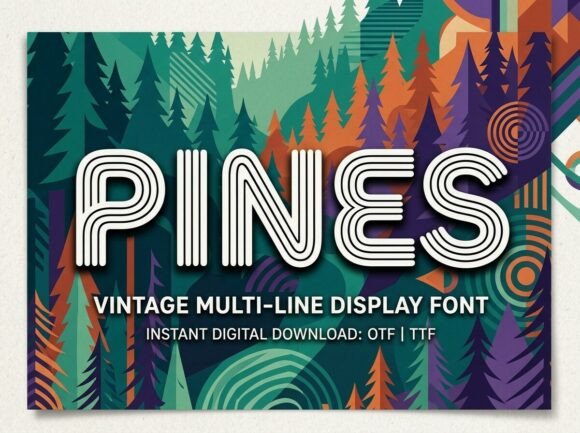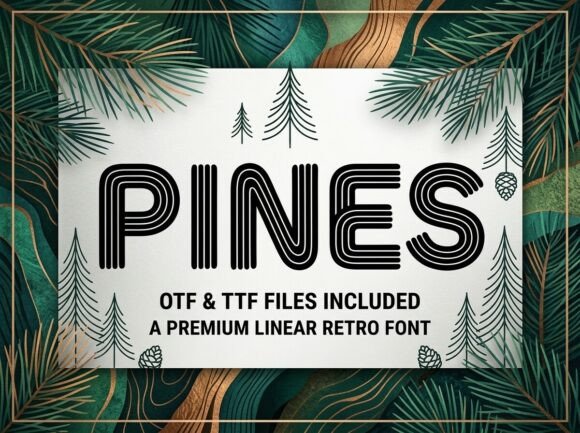
Introduction to Pines Font
Remember the thrill of flipping through a vintage magazine, stumbling upon a retro advertisement that perfectly captured the essence of a bygone era? For designers, that moment is a treasure trove of inspiration – and the Pines Font is a key part of that treasure. This stunning display typeface is a masterclass in capturing the spirit of a bygone age, with its bold, rounded letterforms and classic mid-century striped effect.
With its high-contrast geometric energy and nostalgic personality, the Pines Font is a design resource that’s hard to resist. Whether you’re working on a project that demands a vintage vibe or simply want to add some old-school cool to your creative project, this font is sure to deliver. And the best part? It’s available for a free download, making it an accessible high-quality addition to any designer’s toolkit.
From independent retro diner branding to 70s-inspired apparel logos, the Pines Font is a versatile choice that’s sure to bring a touch of elegance to your design work. With its transparent background and sleek lines, it’s the perfect choice for designers who want to create high-impact social media headers, vinyl record store identities, or anything else that requires a dash of nostalgic charm.
Honest Review: Pines Font
I recently stumbled upon the Pines Font and I’m excited to share my thoughts on this design resource. The Pines Font is a beautifully crafted, high-quality font that’s perfect for creative projects.
What works well about the Pines Font is its unique and elegant design, making it suitable for a wide range of applications, from digital designs to printed materials. The font is available for free download, which is a major plus in my book. I also appreciate the transparent background, which allows for easy integration into various design settings.
- ✨ Unique and elegant design
- ✨ High-quality font
One limitation I’ve noticed is that the Pines Font may not be suitable for projects that require a bold or distressed look. Additionally, the font may not be compatible with all operating systems or software.
Overall, I’m impressed with the Pines Font and would definitely recommend it for creative projects that require a high-quality, elegant font. With its unique design and transparent background, this font is a valuable addition to any designer’s toolkit.
Pines Font is a high-quality design resource that offers a free download with a transparent background. This versatile font is perfect for a variety of creative projects, from logos and branding to digital art and print materials.
Tips for Getting the Most Out of Pines Font
To get the most out of Pines Font, experiment with different font sizes, colors, and styles to create unique and eye-catching designs. You can also combine Pines Font with other design elements to create a cohesive look.
Pines Font is perfect for a variety of creative projects, including logos, branding, digital art, and print materials. Its transparent background makes it easy to use in a range of design contexts.